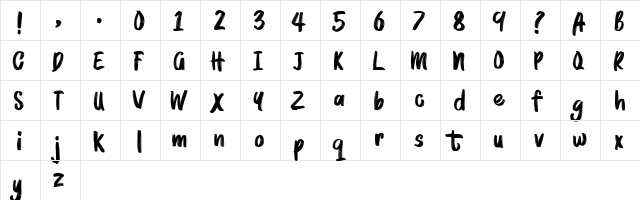
BRUSHMOSH! Demo Regular
Design Context for BRUSHMOSH! Demo Typeface
BRUSHMOSH! Demo flows with the natural rhythm of handwritten lettering, making it ideal for designs that call for warmth and personal expression.
Font Pairing: Combine BRUSHMOSH! Demo with a simple geometric sans for maximum contrast — the tension between flowing curves and clean structure is a classic typographic pairing.
Pro Tip: Pair BRUSHMOSH! Demo with a clean sans-serif for supporting text. The contrast between fluid script and geometric structure creates an elegant typographic hierarchy.